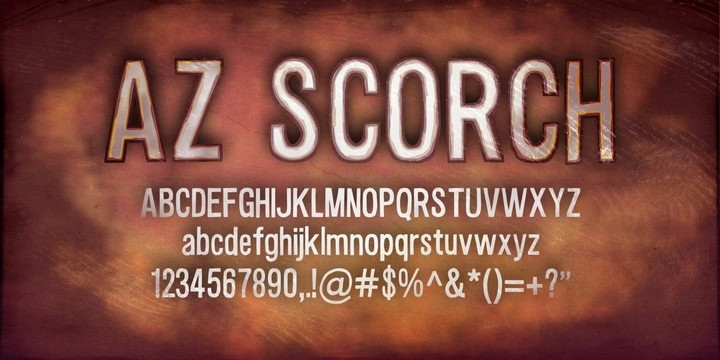
az scorch
Unleash Creativity with AZ Scorch Font
AZ Scorch Font, crafted by leading type designer Alex Zander in 2022, embodies a bold and dynamic aesthetic suitable for various creative applications. This versatile font is perfect for web design, print media, branding, and eye-catching logos, making it an essential addition for designers seeking to make a memorable impact.
Key Features and Formats of AZ Scorch Font
The Inspiration Behind AZ Scorch Font
Born from the desire to create a font that merges strength with creativity, AZ Scorch Font features sharp angles and powerful curves, offering a contemporary look. Alex Zander’s innovative design approach ensures that this font adds a distinctive flair to any project, making it perfect for brands that dare to be different.
Best Uses for AZ Scorch Font
This font excels in situations where boldness is key. Whether you need it for website headings, striking advertisements, or logo designs, AZ Scorch Font delivers an unforgettable visual punch that communicates confidence and originality.